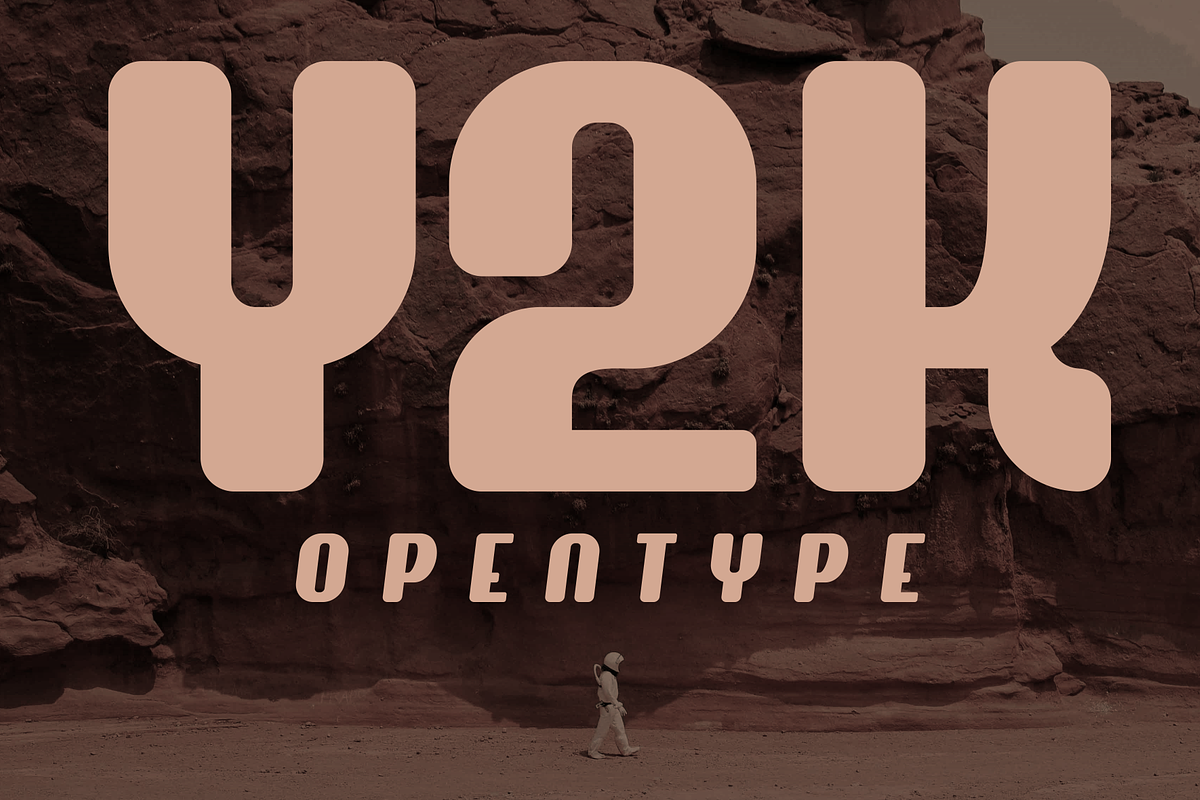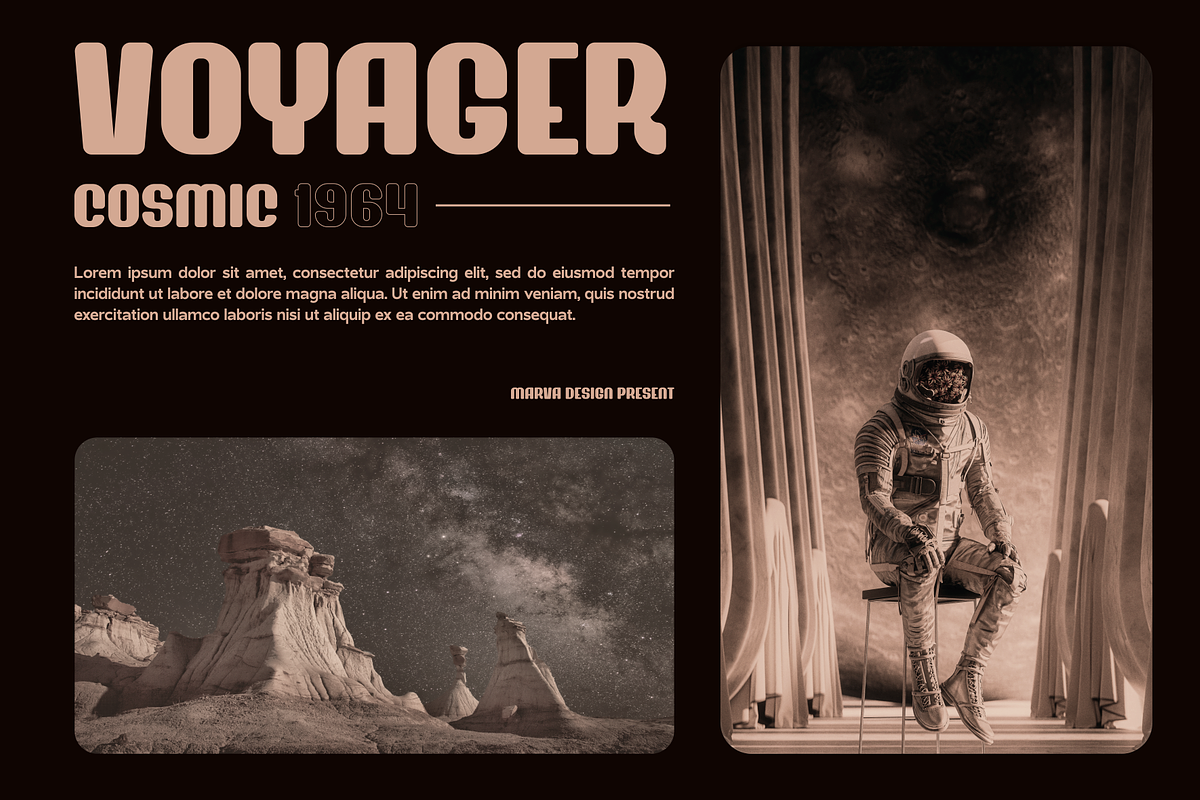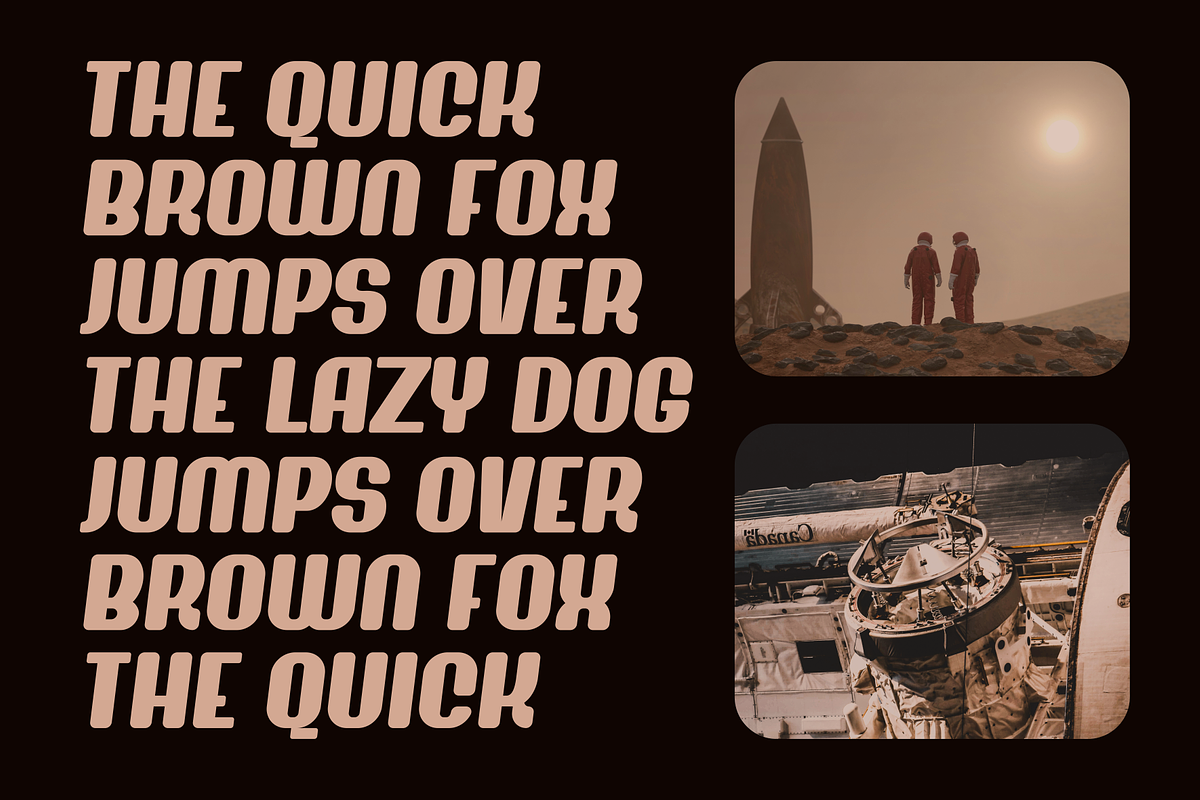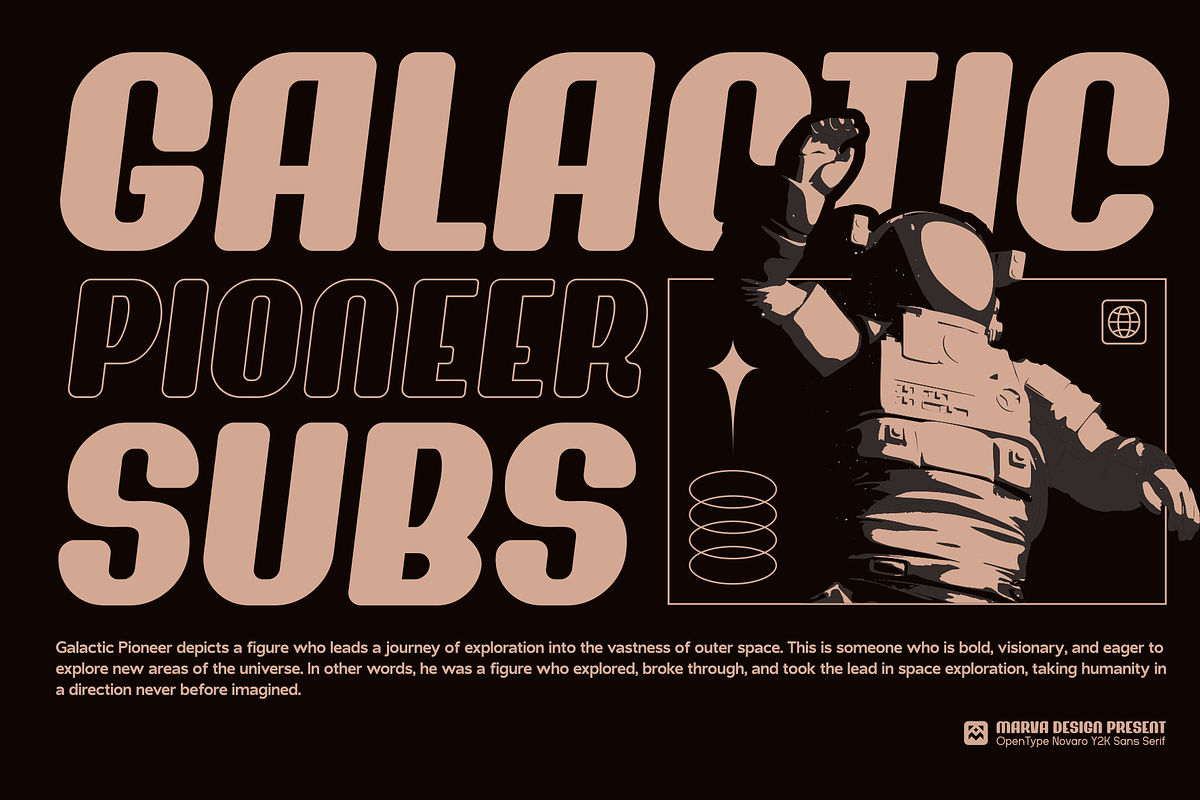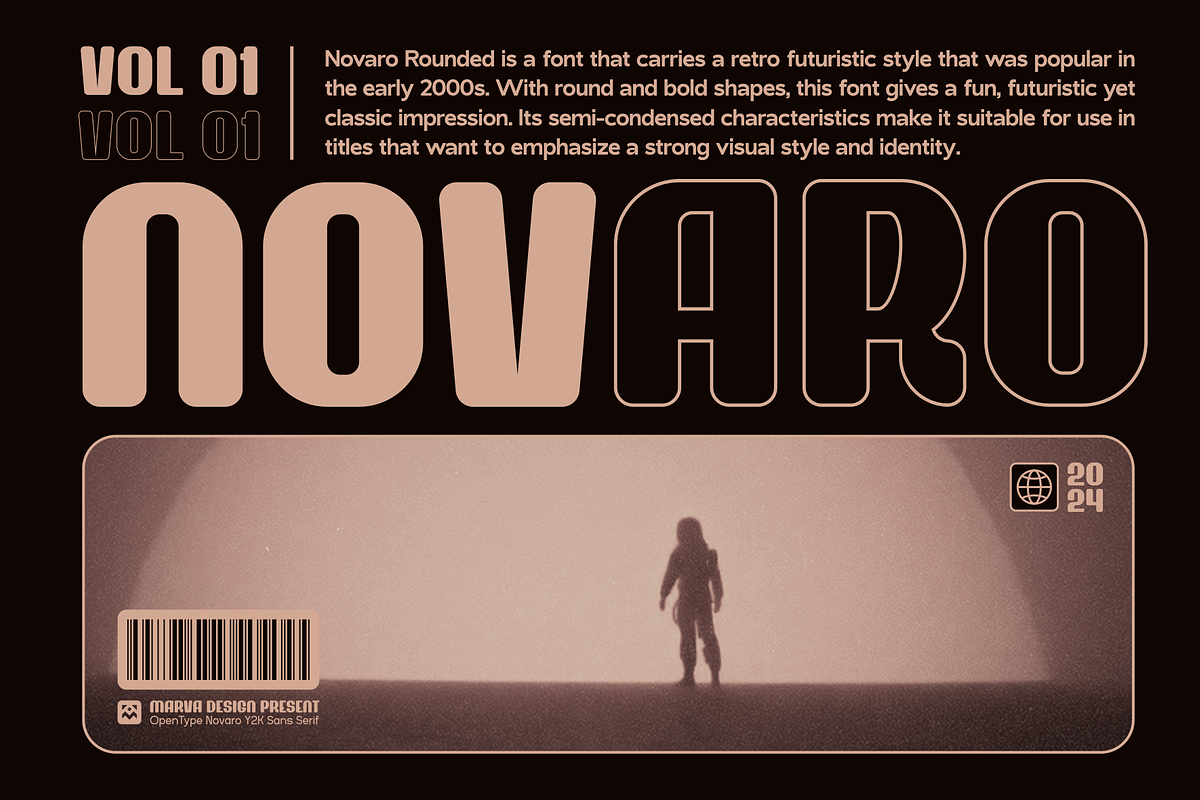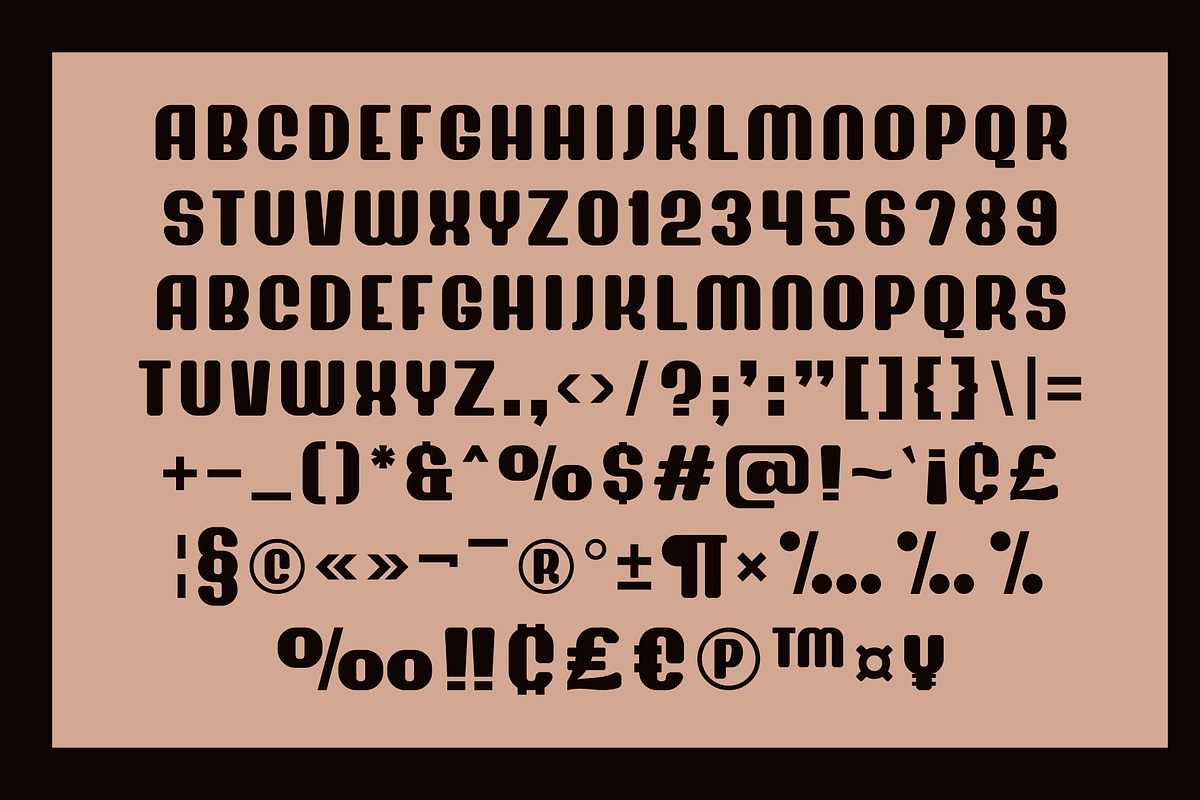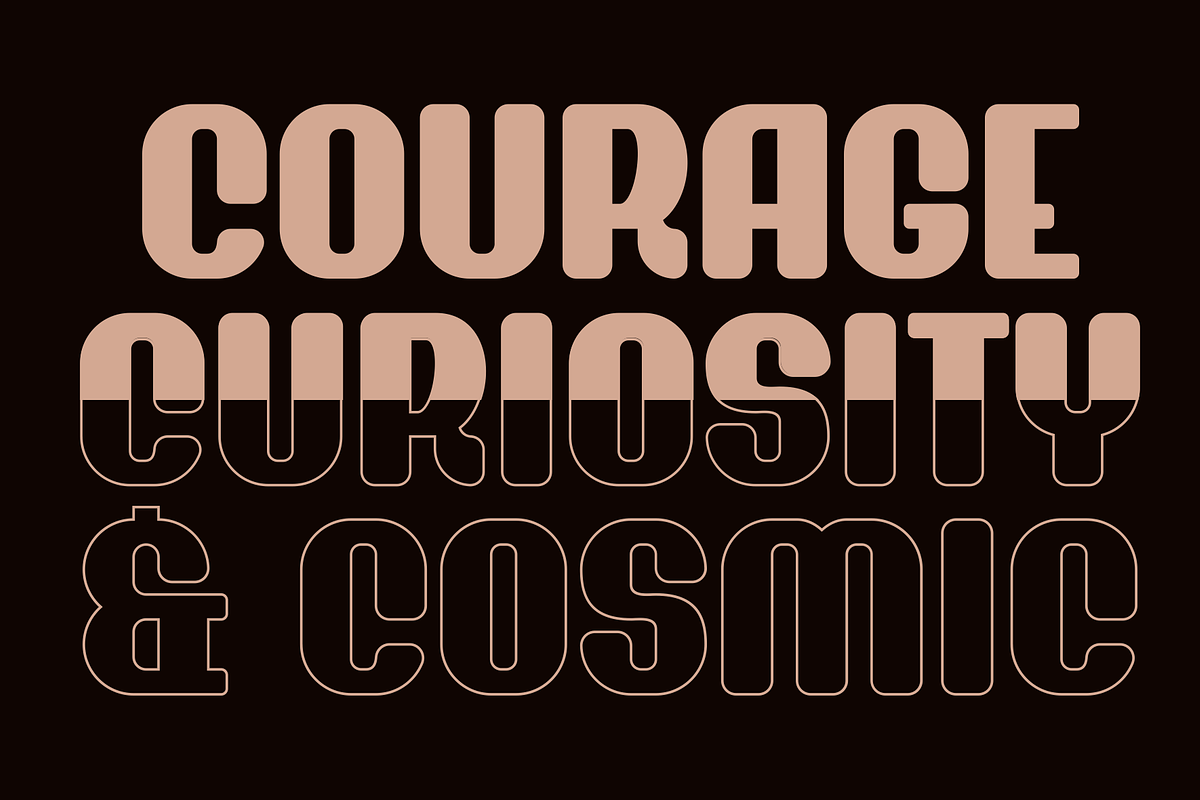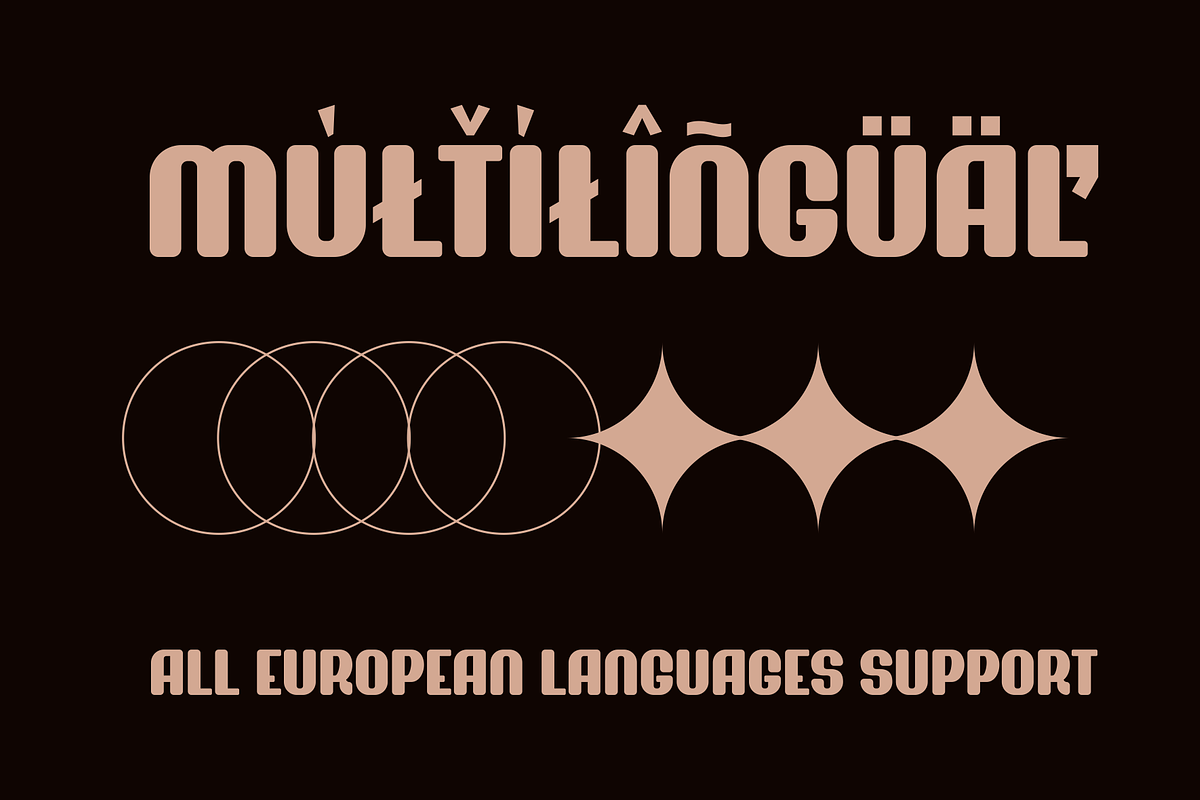
Novaro - Modern Rounded
Novaro Rounded is a font y2k that carries a retro futuristic style that was popular in the early 2000s. With round and bold shapes, this font gives a fun, futuristic yet classic impression. Its semi-condensed characteristics make it suitable for use in titles that want to emphasize a strong visual style and identity.